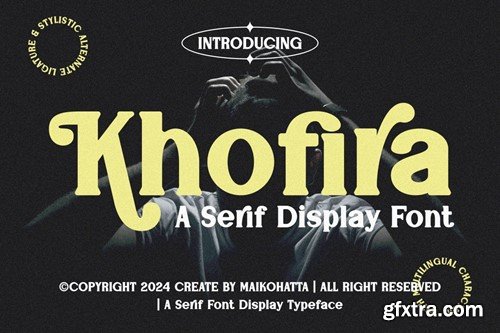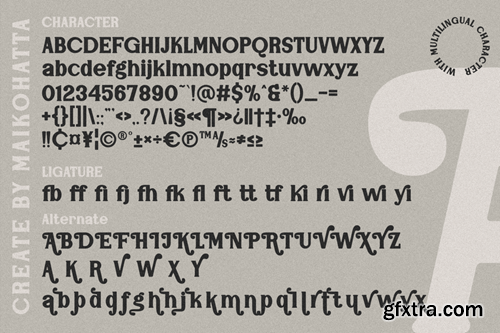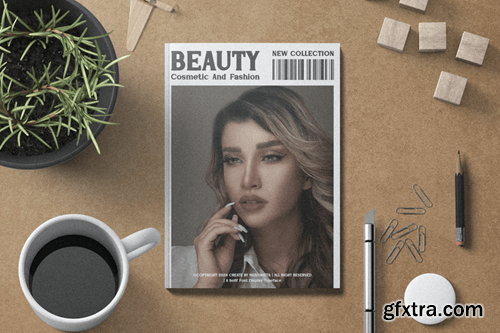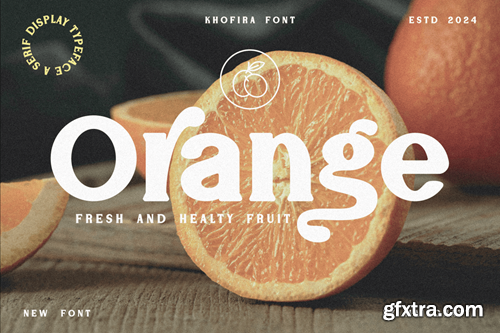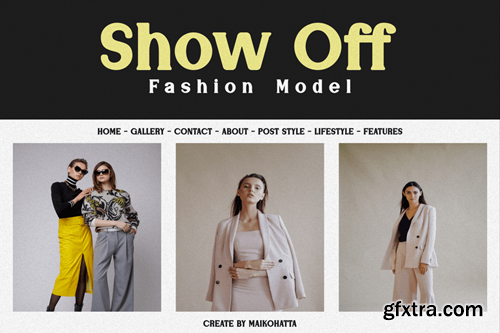
Khofira - Serif Display Font
Introducing our new product Khofira - Serif Display Font This font is a typographic masterpiece that harmonizes elegance and sharpness. Every letter within this font is meticulously designed, with a keen focus on balanced proportions and impeccable alignment. This font is well-suited for a variety of contexts, such as print design, promotional materials, or magazine layouts. available